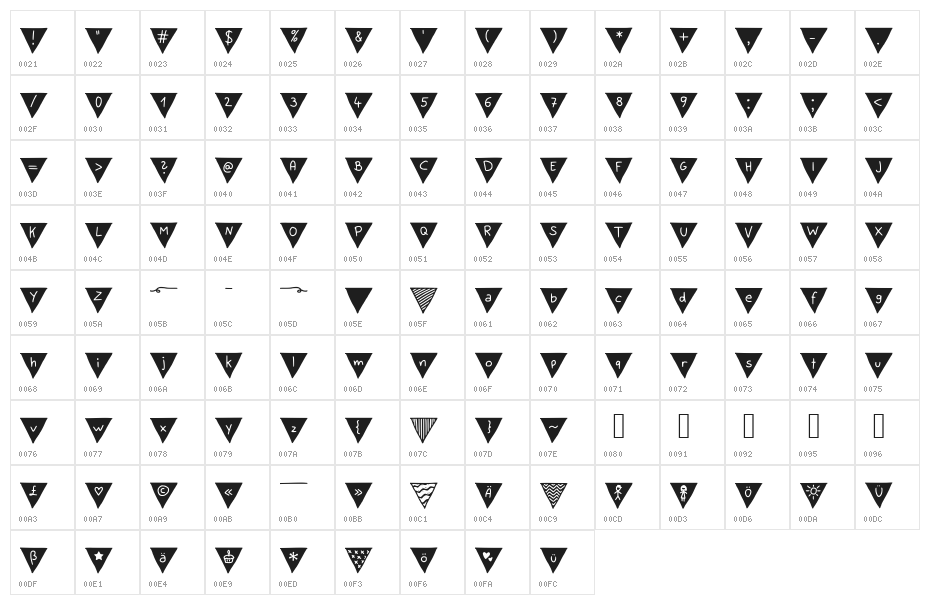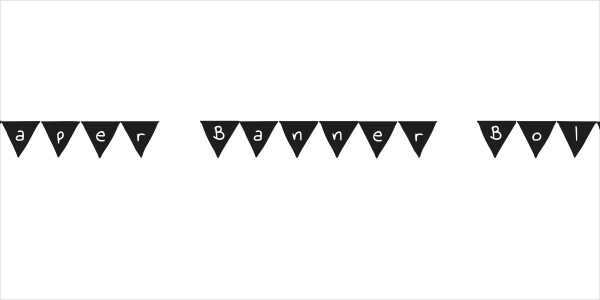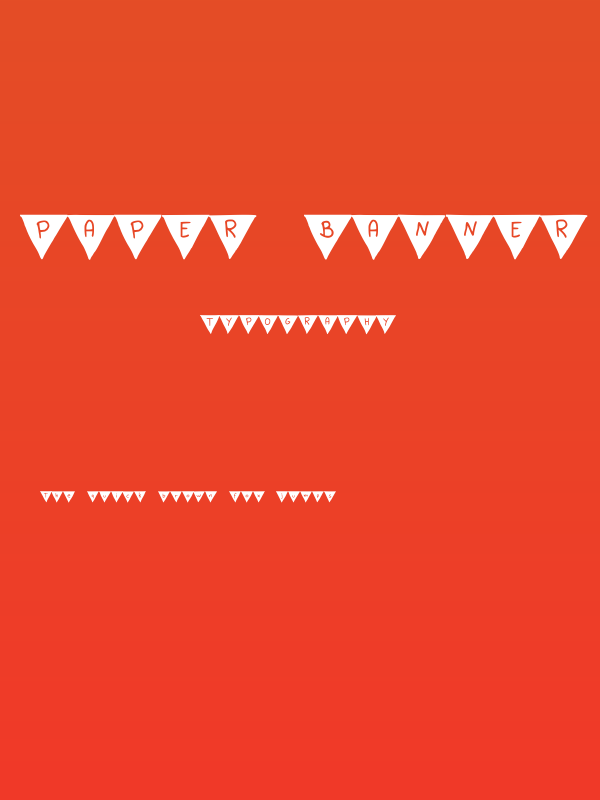
Paper Banner Bold Font
Paper Banner Bold Description
This font features a playful and decorative style, with each character enclosed in a triangular banner shape. The letters are bold and slightly whimsical, giving off a festive and celebratory vibe. The uppercase and lowercase letters maintain a consistent style, with clean lines and a uniform thickness. Numbers and special characters are also included, each fitting neatly within the triangular banners. This font is perfect for creating eye-catching designs that require a touch of fun and creativity.
| Proposed Projects | Ideal for party invitations, banners, festive posters, and children's event materials. |